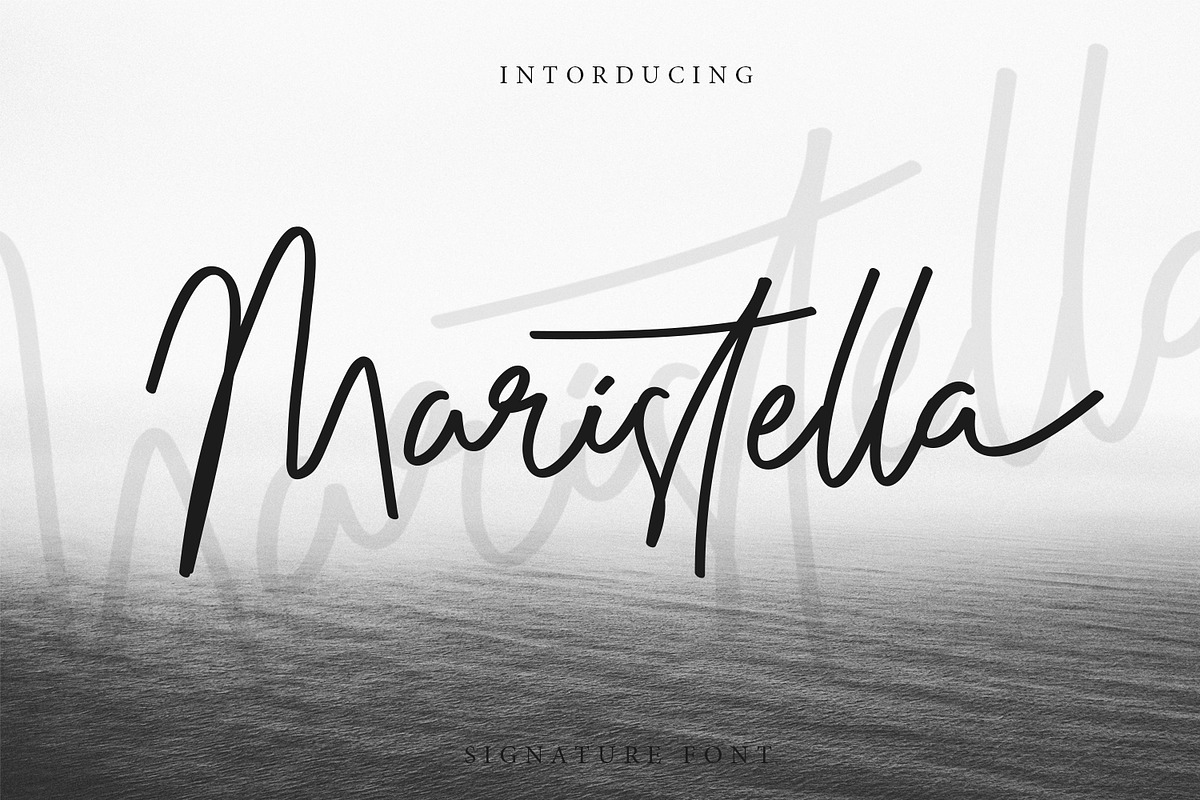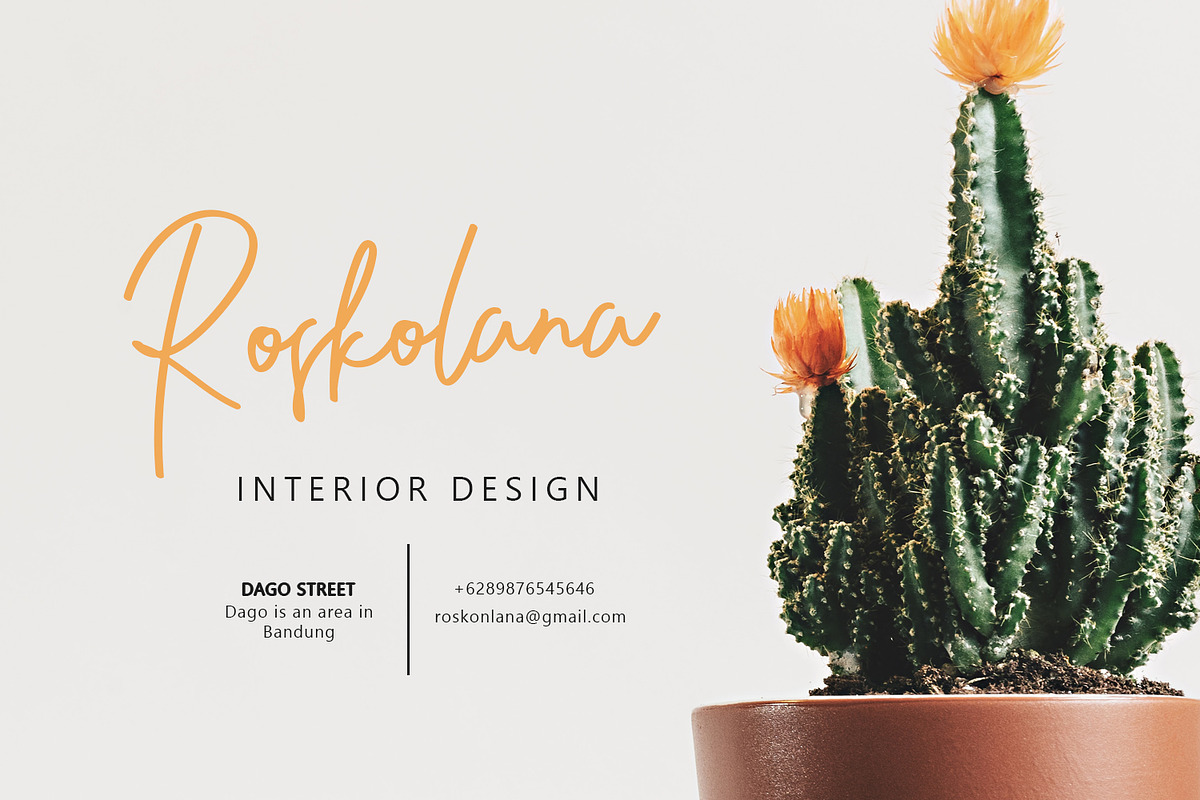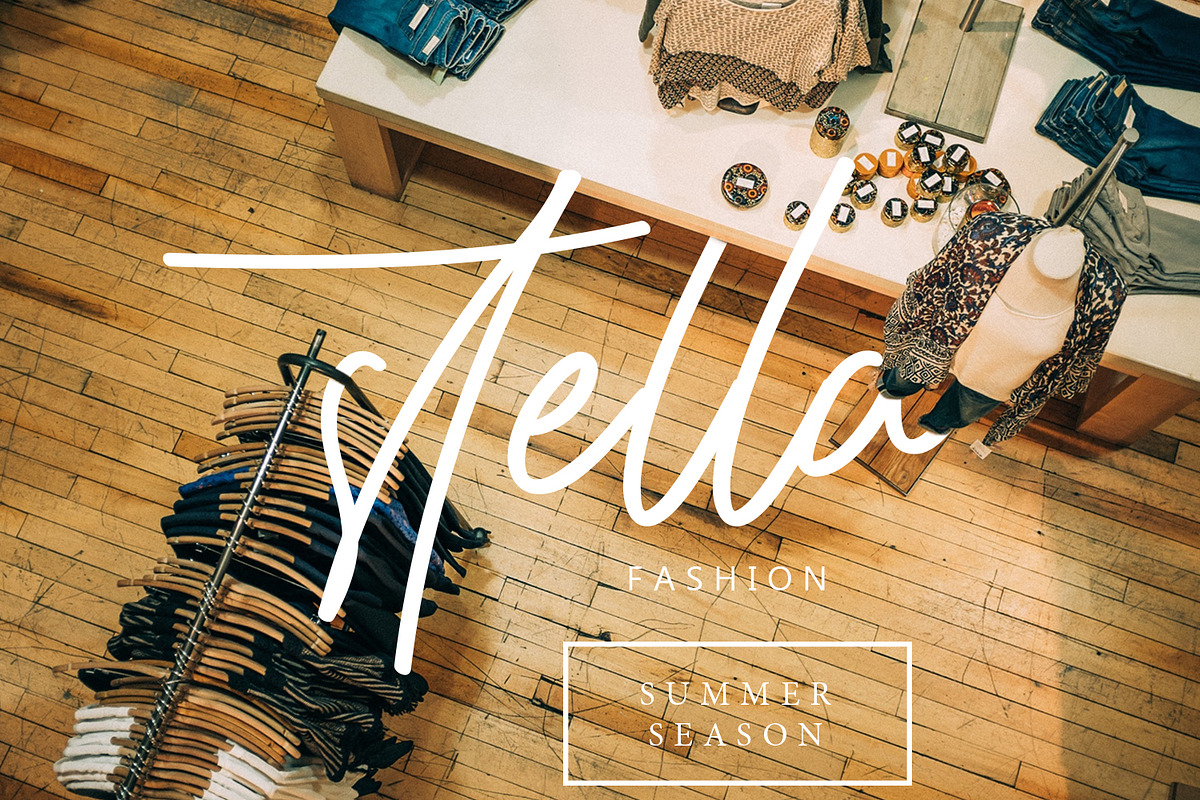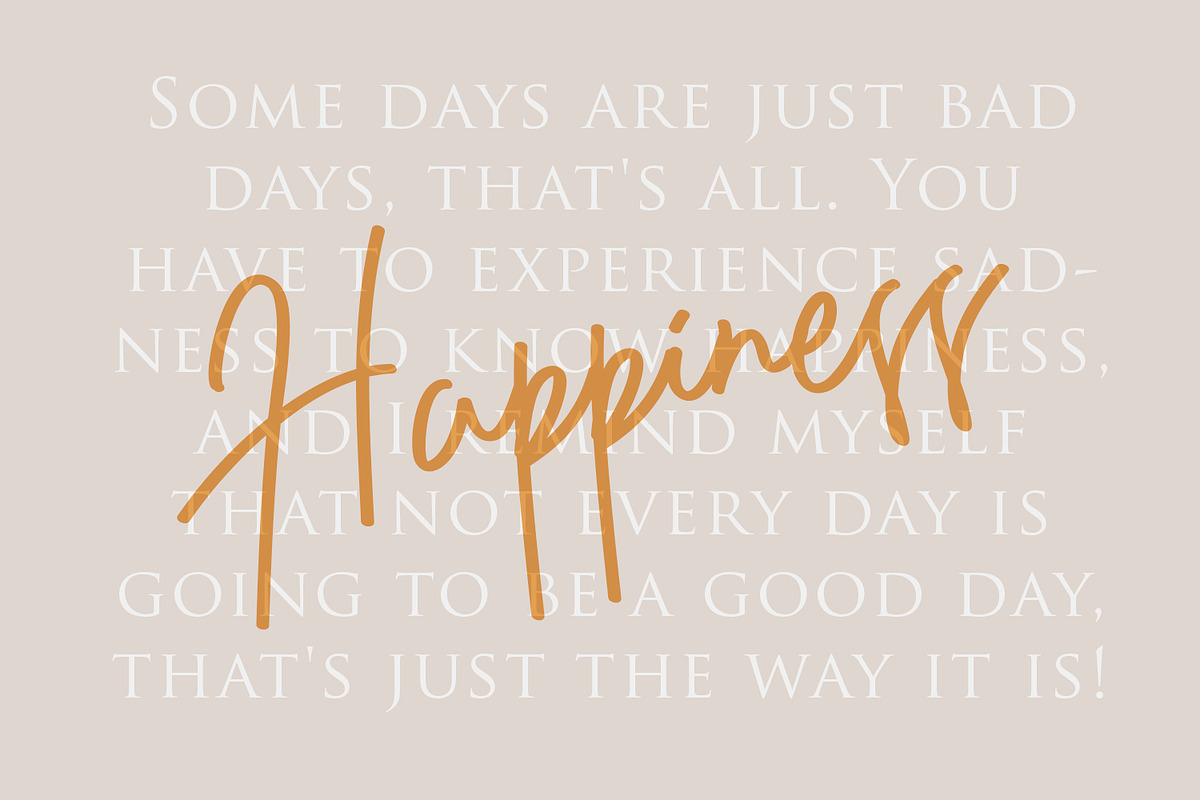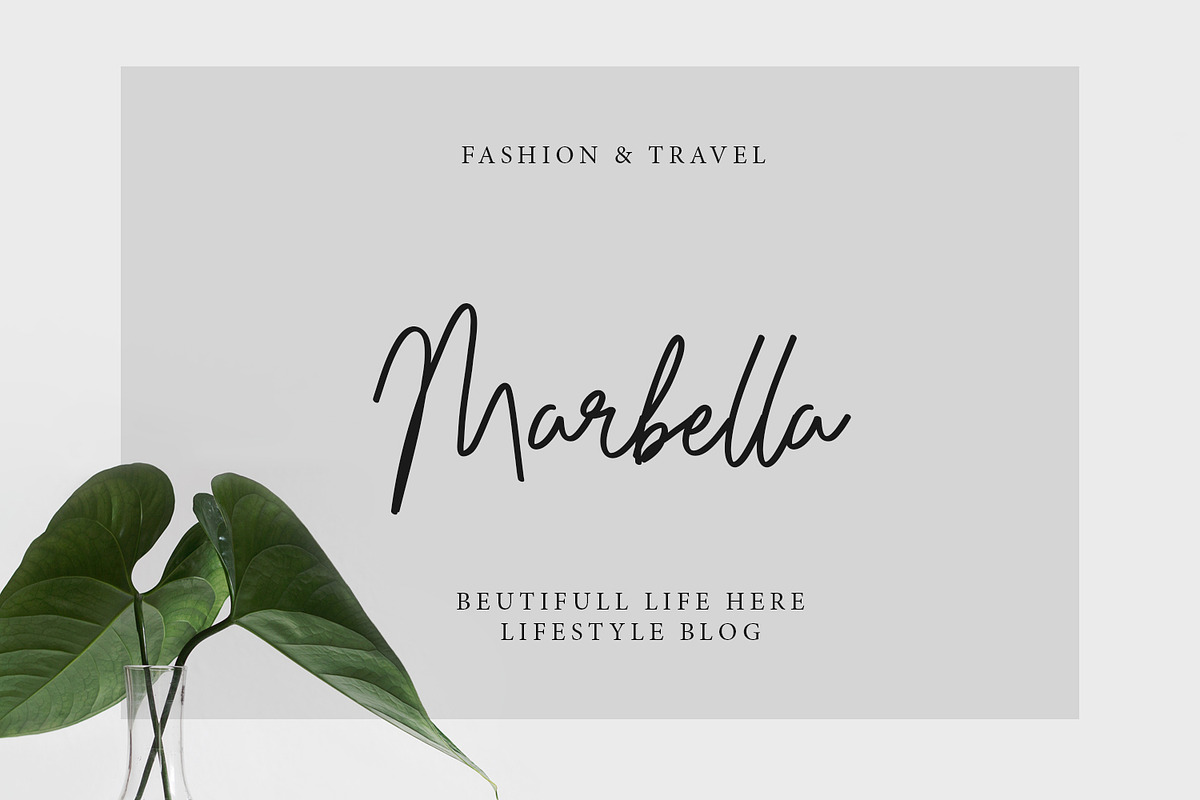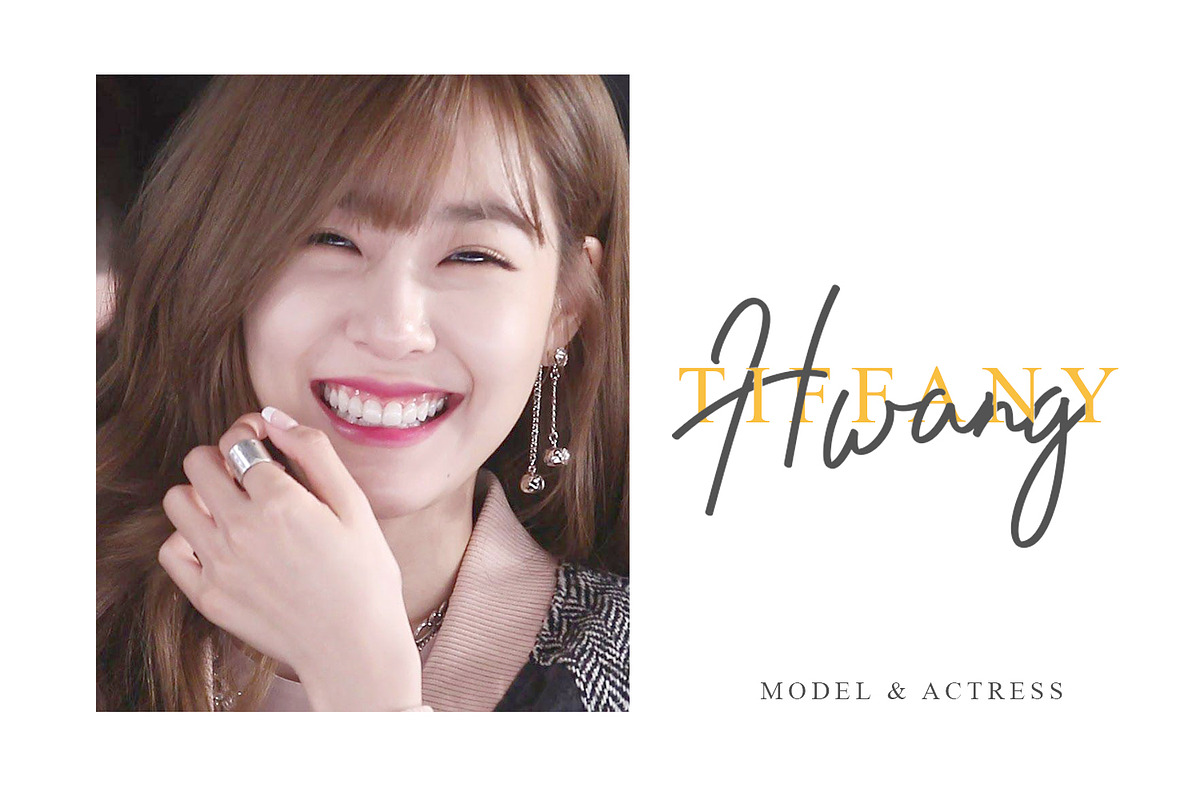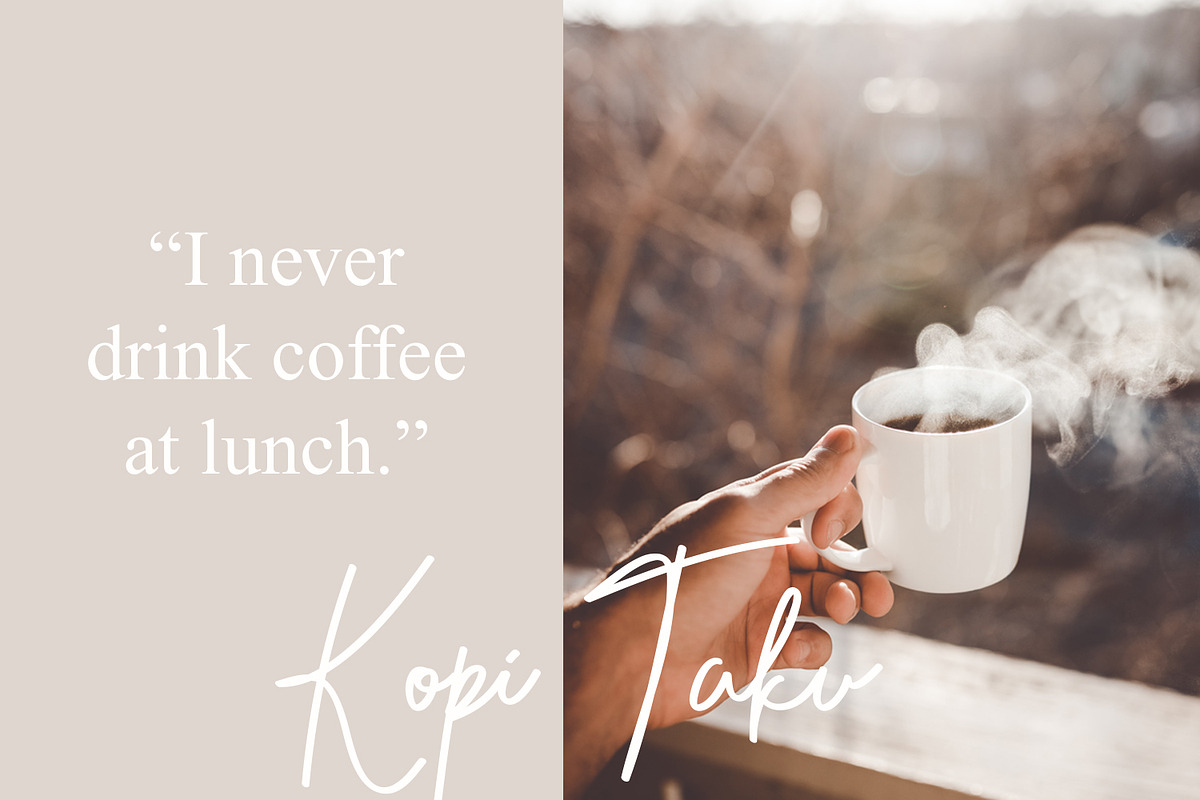
Maristella Signature Font
Maristella is a signature font that is unique, has an elegant style and is wrapped with an original hand stroke so it will be very suitable for your design project
Maristella Signature Font by Arendxstudio fits naturally into Branding, posters, packaging, typography.